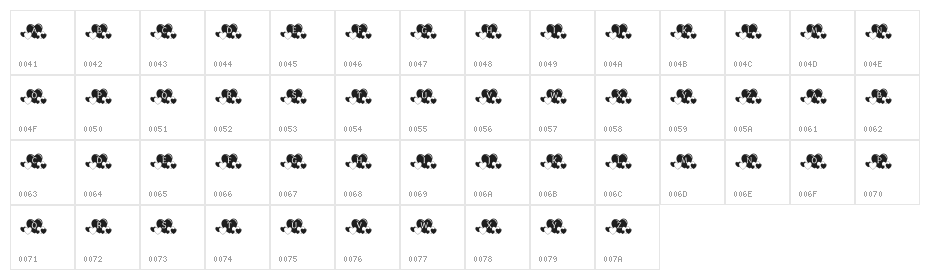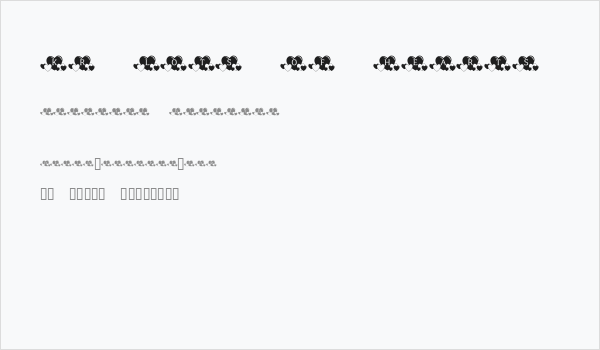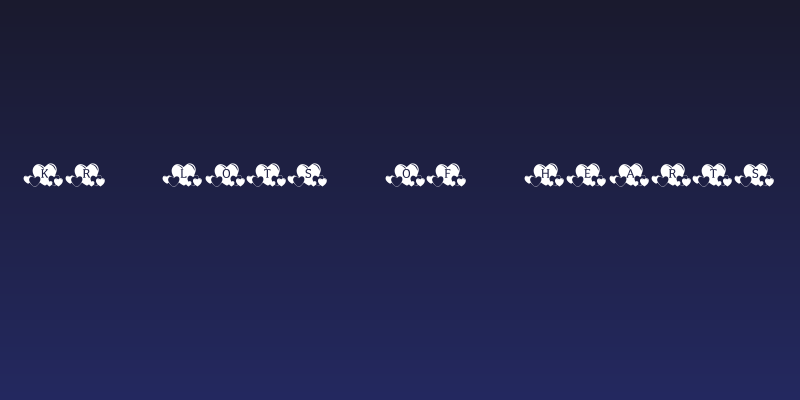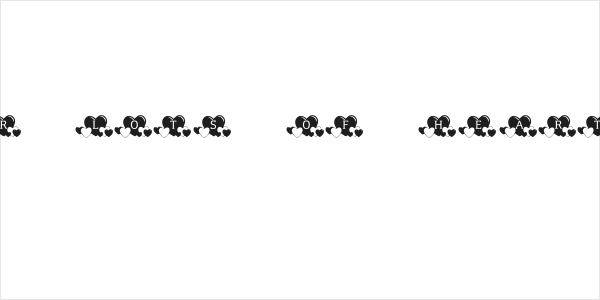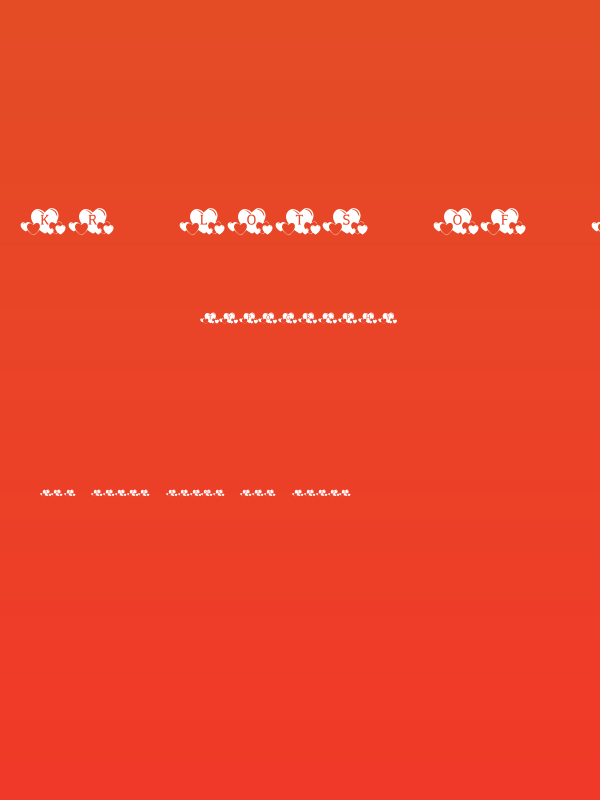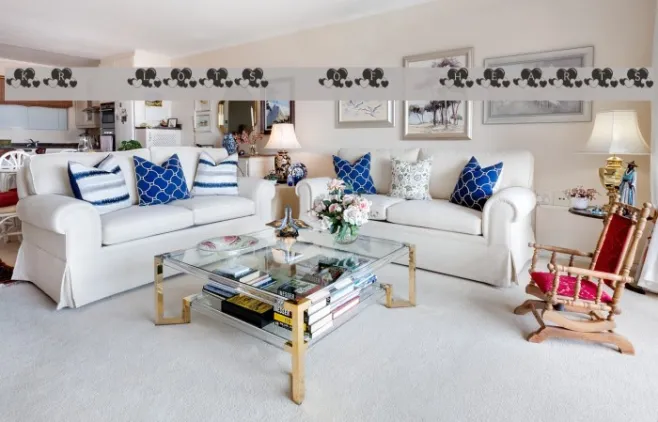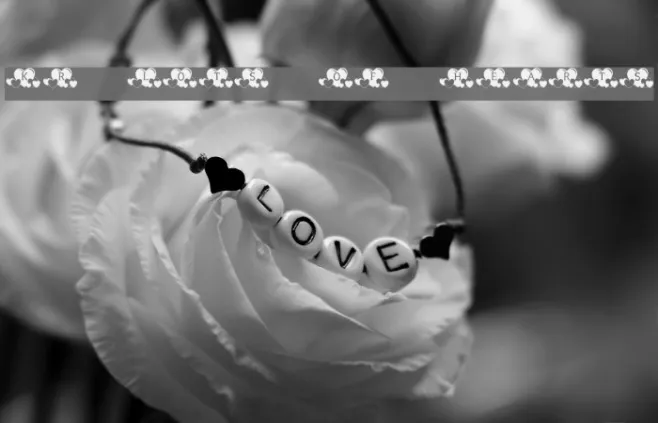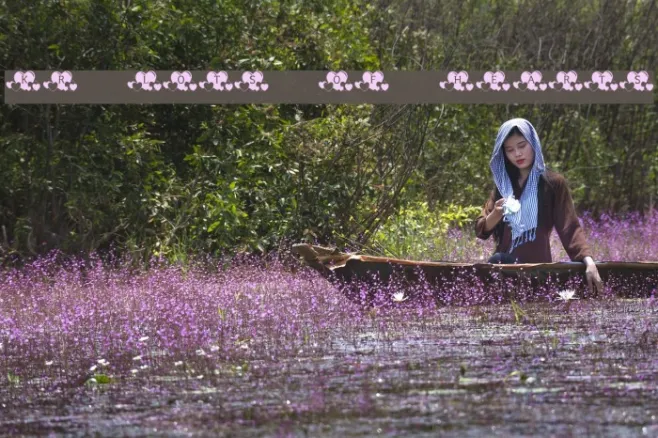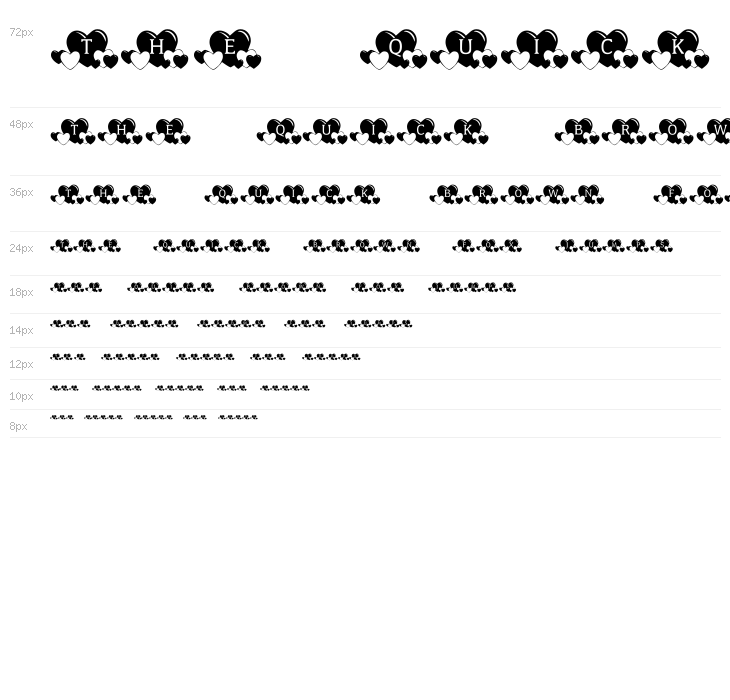
KR Lots Of Hearts Font
KR Lots Of Hearts Description
This playful and decorative font features each character encased within a series of heart shapes, creating a whimsical and romantic aesthetic. The letters are bold and clear, making them stand out against the intricate heart patterns. This design is perfect for projects that require a touch of love and creativity, such as Valentine's Day cards, wedding invitations, or any romantic-themed design. The font maintains a consistent style across uppercase and lowercase letters, as well as numbers and special characters, ensuring a cohesive look throughout any text.
| Proposed Projects | Ideal for Valentine's Day cards, wedding invitations, love-themed posters, and playful designs. |